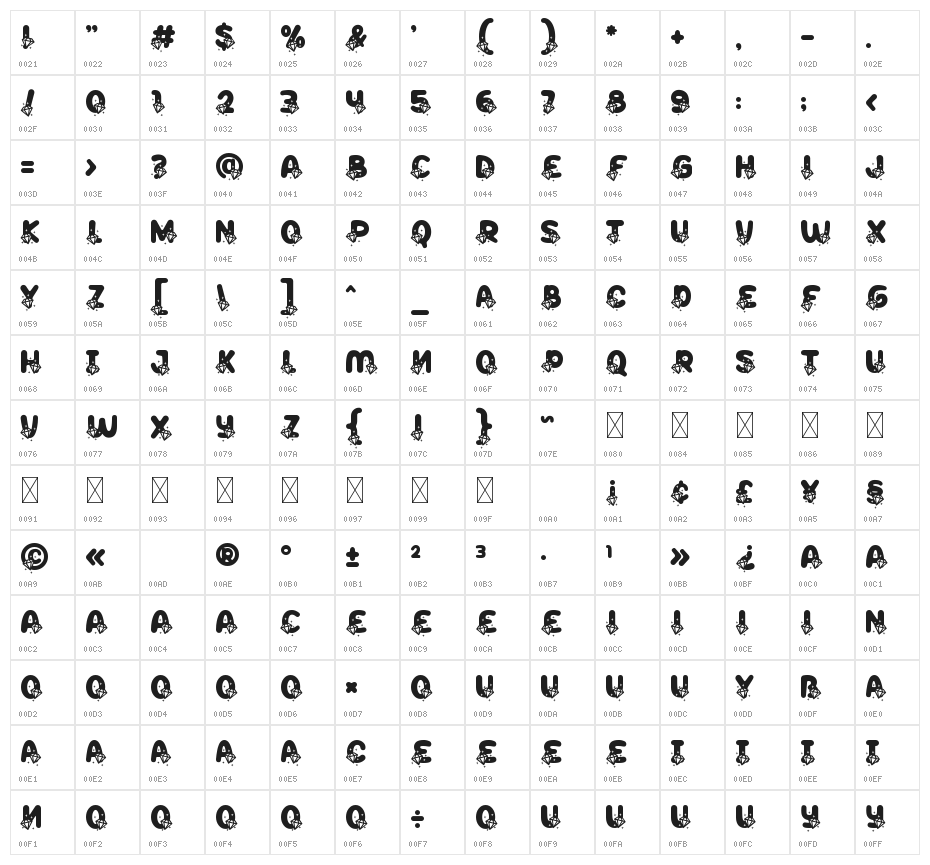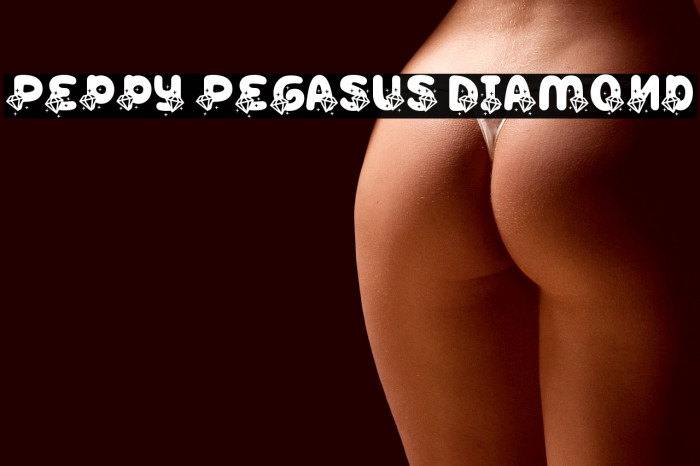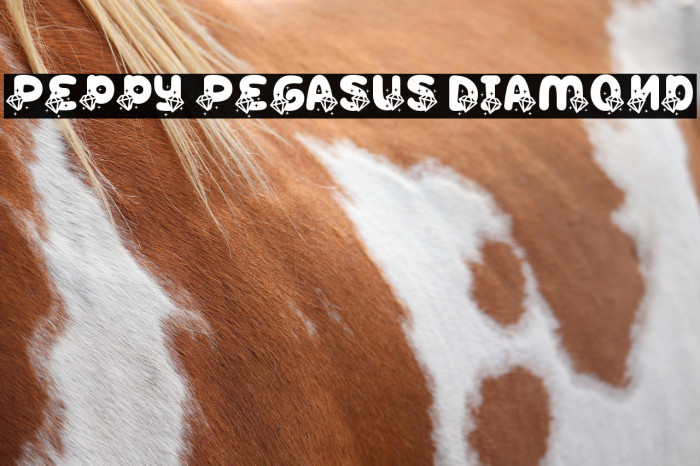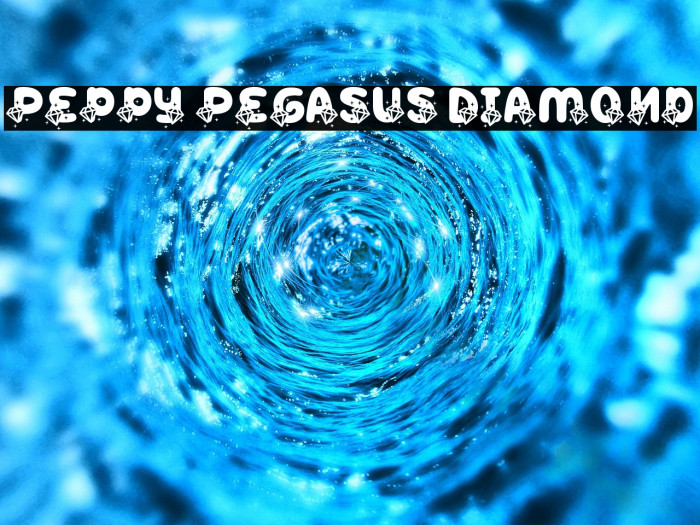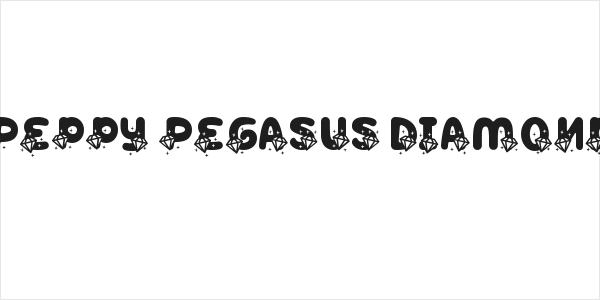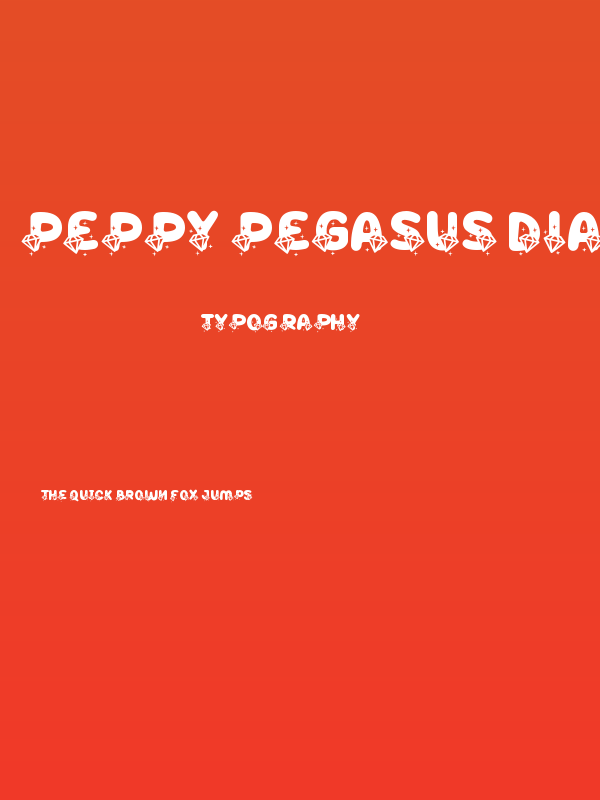
Peppy Pegasus Diamond Font
Peppy Pegasus Diamond Description
This playful and decorative font features bold, rounded characters adorned with diamond motifs, giving it a whimsical and luxurious feel. Each letter and number is embellished with a sparkling diamond graphic, adding a touch of elegance and fun. The font's thick strokes and rounded edges create a sense of friendliness and approachability, while the diamond accents introduce a unique and eye-catching element. This combination makes it ideal for projects that require a blend of playfulness and sophistication.
| Use Case | Headlines, Logos, Decorative text |
| Proposed Projects | Ideal for children's party invitations, playful branding, luxury-themed events, and decorative posters. |